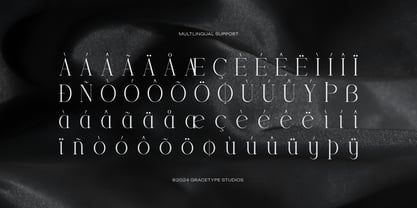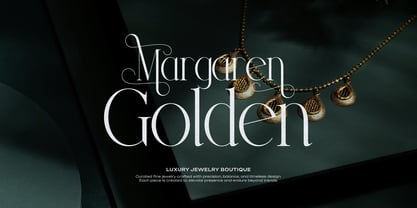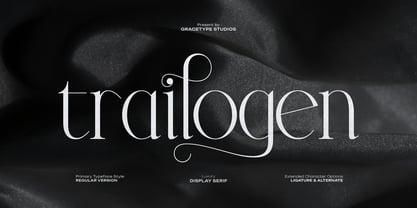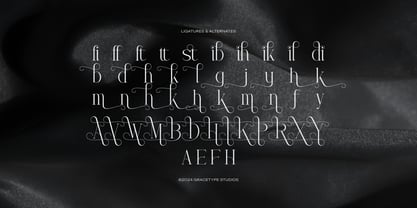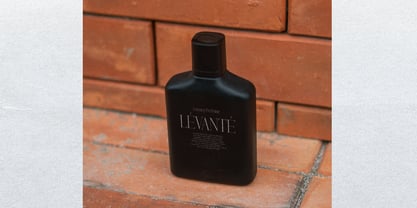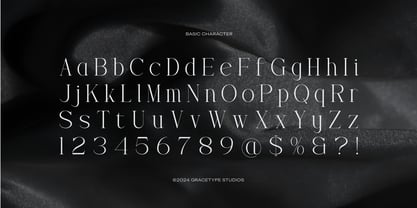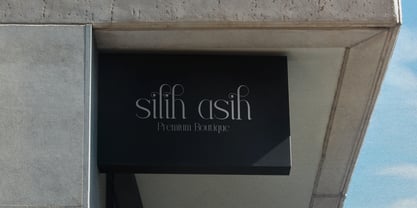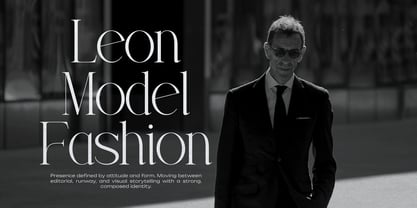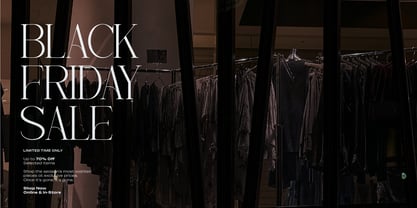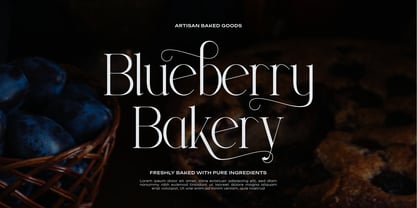
Trailogen
Trailogen | Display Serif Font, from Gracetypestudio, suitable for any projects such as: logos, branding projects, homeware designs, product packaging, mugs, quotes, posters, shopping bags, t-shirts, book covers, name card, invitation cards, greeting cards, label, photography, watermark, special events, and all your other lovely projects that need a Serif taste.